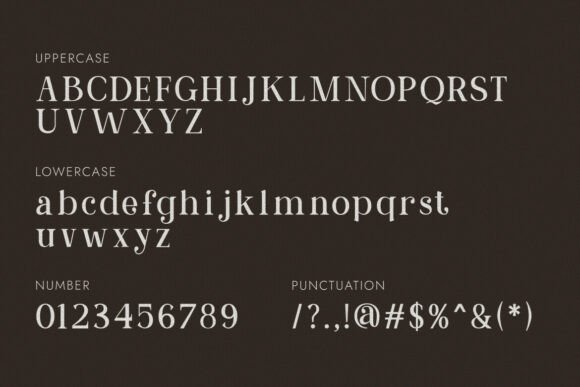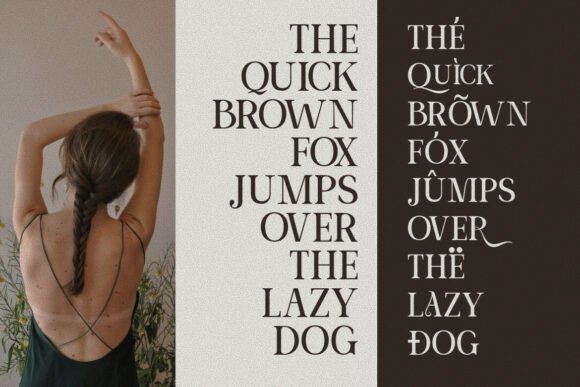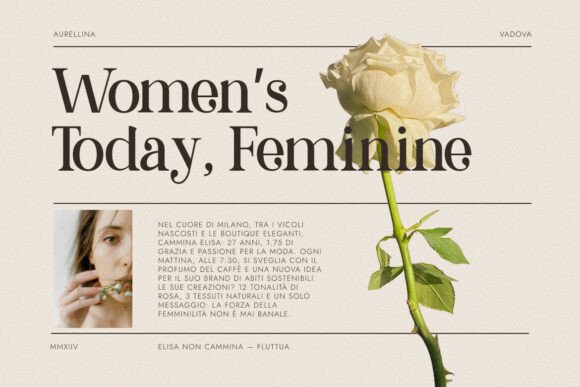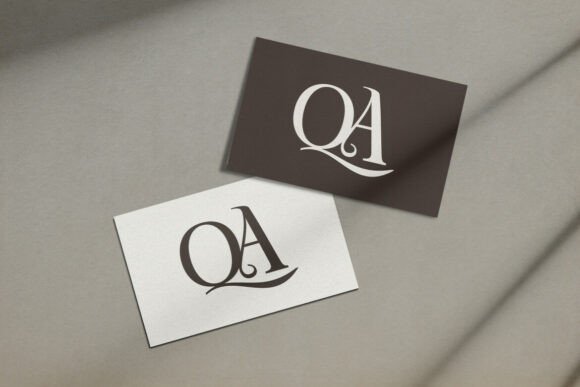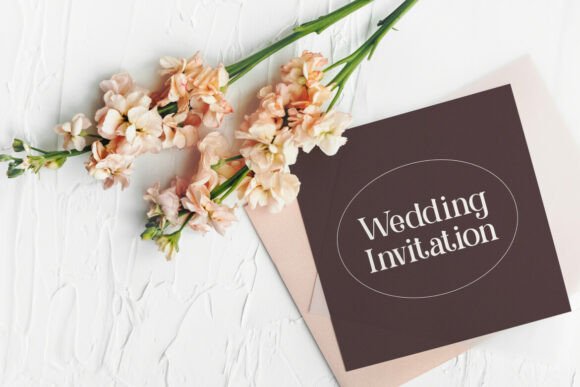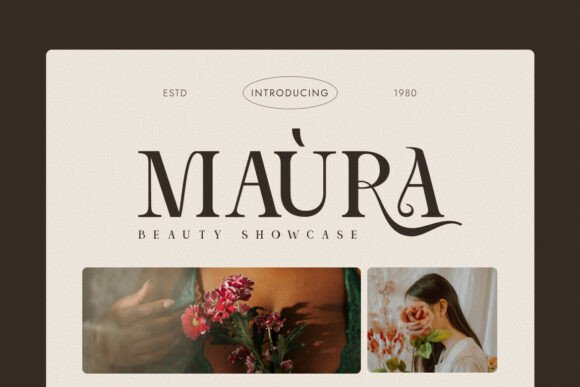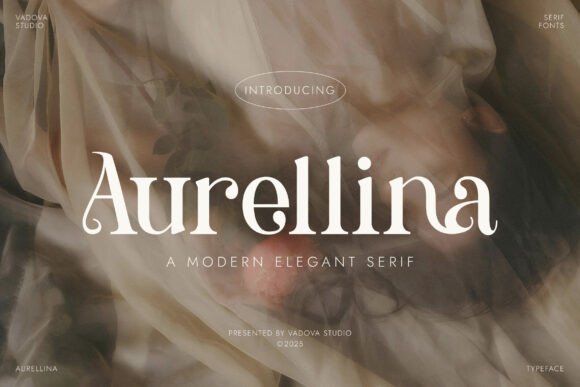
Aurellina Font: Elevate Your Designs with Elegance and Sophistication
In the world of typography, a well-crafted font can make all the difference in elevating a design from ordinary to extraordinary. Introducing Aurellina, a modern and stylish serif font that is poised to become a go-to choice for designers and crafters seeking to add a touch of elegance and sophistication to their projects. With its refined letterforms, graceful curves, and handcrafted details, Aurellina is the perfect blend of classic and contemporary typography.
The Aurellina Advantage: A Perfect Blend of Style and Sophistication
Aurellina is more than just a font – it’s an experience. Designed to elevate branding, editorial layouts, and elegant invitations, this typeface is perfect for those seeking to add a touch of refinement and luxury to their designs. Whether you’re working on a wedding invitation, a beauty showcase, or a luxury branding project, Aurellina’s timeless aesthetic is sure to impress.
So, what sets Aurellina apart from other fonts? Here are just a few of its key features:
- Refined letterforms: Aurellina’s letterforms are meticulously crafted to exude elegance and sophistication. With its subtle curves and refined lines, this font is perfect for creating stunning headlines, titles, and body copy.
- Graceful curves: Aurellina’s curves are smooth and flowing, adding a touch of softness and femininity to any design. Whether you’re working on a wedding invitation or a beauty showcase, these curves are sure to add a touch of elegance.
- Handcrafted details: What sets Aurellina apart from other fonts is its handcrafted details. With a level of attention to detail that’s hard to find in digital fonts, Aurellina is the perfect choice for designers seeking to add a touch of artisanal charm to their work.
Aurellina is an incredibly versatile font that can be used in a wide range of design projects. Here are just a few ideas to get you started:
- Wedding Invitations: Aurellina’s elegant curves and refined letterforms make it the perfect choice for wedding invitations. Whether you’re designing a formal or informal invitation, this font is sure to add a touch of sophistication.
- Beauty Showcases: If you’re working on a beauty showcase or a luxury branding project, Aurellina is an excellent choice. Its refined lines and elegant curves are sure to add a touch of glamour and sophistication.
- Luxury Branding: Aurellina’s timeless aesthetic makes it perfect for luxury branding projects. Whether you’re working on a high-end fashion brand or a luxury lifestyle brand, this font is sure to add a touch of elegance and sophistication.
- Creative Design Templates: Aurellina is also perfect for creative design templates. Whether you’re designing a brochure, a flyer, or a social media graphic, this font is sure to add a touch of refinement and luxury.
Why Choose Aurellina?
With so many fonts to choose from, why should you choose Aurellina? Here are just a few reasons:
- Timeless Aesthetic: Aurellina’s timeless aesthetic ensures that your designs will never go out of style. Whether you’re working on a digital or print project, this font is sure to add a touch of elegance and sophistication.
- Versatility: Aurellina is an incredibly versatile font that can be used in a wide range of design projects. Whether you’re working on a wedding invitation or a luxury branding project, this font is sure to be a great choice.
- Soft Artistic Edge: Aurellina’s handcrafted details and refined letterforms give it a soft artistic edge that’s hard to find in digital fonts. Whether you’re a designer or a crafter, this font is sure to add a touch of artisanal charm to your work.
In conclusion, Aurellina is a modern and stylish serif font that is poised to become a go-to choice for designers and crafters seeking to add a touch of elegance and sophistication to their projects. With its refined letterforms, graceful curves, and handcrafted details, this typeface blends classic and contemporary typography in a way that’s both timeless and stylish. Whether you’re working on a wedding invitation, a beauty showcase, or a luxury branding project, Aurellina is the perfect choice for those seeking refined typography with a soft artistic edge.